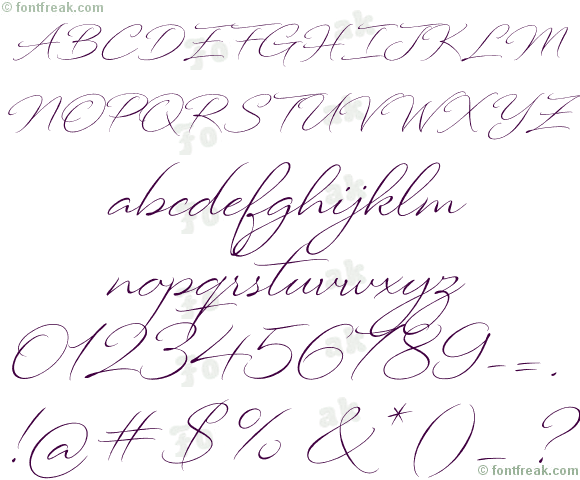
NorthWave
NorthWave is a captivating script font designed by Youssef Habchi, showcasing an elegant and fluid style that adds a touch of sophistication to any project. This font falls under the category of script typefaces, characterized by its graceful curves and flowing lines. The stroke weight is moderate, creating a delicate balance between readability and artistic flair. The contrast in thickness between the ascenders and descenders enhances its visual appeal while maintaining clarity. The letterforms are well-spaced, allowing for ease of reading, whether in large or small sizes.
This versatile font is perfect for a variety of use cases. It shines in wedding invitations, where its romantic and whimsical nature can set the tone for a memorable event. Additionally, NorthWave is an excellent choice for branding projects, such as restaurant menus, as it conveys a sense of warmth and hospitality. Graphic designers will also find it suitable for creating eye-catching movie posters, where the font’s dynamic style can capture attention. Content creators can utilize it in social media graphics to add a personal touch to their posts, making their content stand out.
What sets NorthWave apart is its ability to blend elegance with approachability. Its flowing script style brings a sense of personalization, making it an ideal choice for anyone looking to add a distinctive flair to their designs. Whether for formal occasions or casual branding, NorthWave is sure to leave a lasting impression.